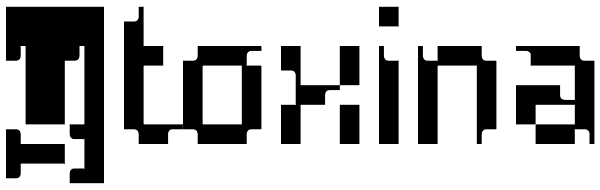
Ytoxina
Ytoxina. Acid new Pixelfont. Do you look for an unconventional aggressive headlinefont? Ytoxina might be exactly what you are looking for. Ytoxina is a new member oft the Atoxina family with experimental character. The form of the letters suggests...